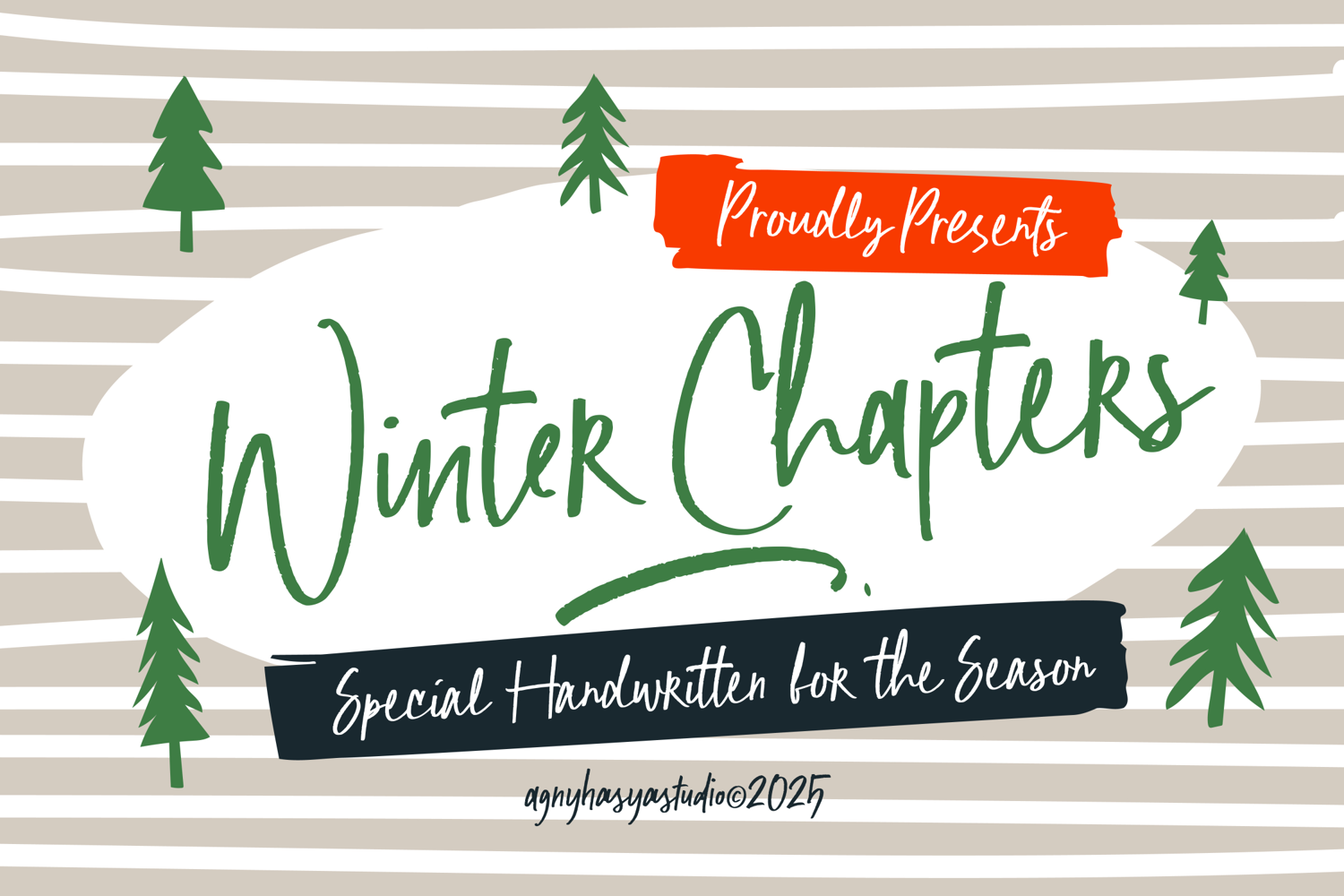
Winter Chapters - Handwritten Font
Winter Chapters is a charming handwritten font designed to capture the cozy spirit of winter. With its warm strokes and natural flow, this font adds a festive, heartfelt touch to every project, making it perfect for celebrating the magic of the cold season.
Ideal for winter events, Christmas, seasonal promotions, branding, holiday quotes, product packaging, greeting cards, social media posts, and standout display text. Winter Chapters brings a soft, inviting personality that feels joyful and authentic.
Whether you're creating a warm holiday message or a stylish winter sale headline, this font provides the perfect seasonal vibe.
To enhance your designs, this font features special ligatures, unique stylistic alternates, and swashes, offering creative flexibility and beautifully varied lettering.